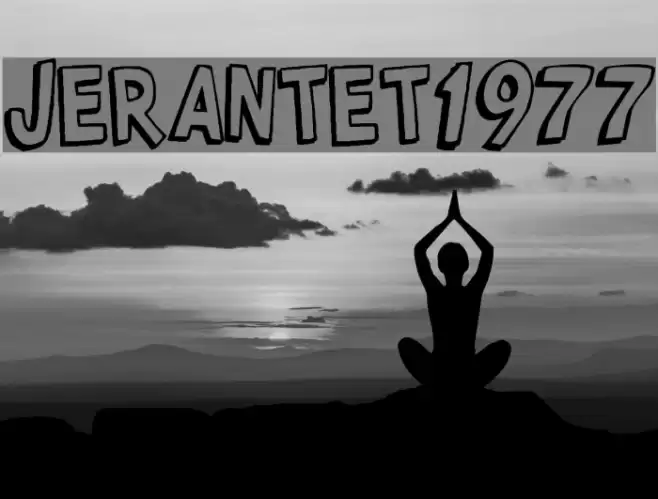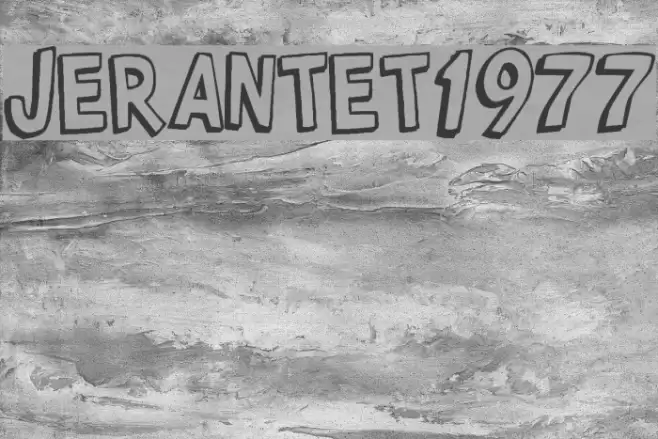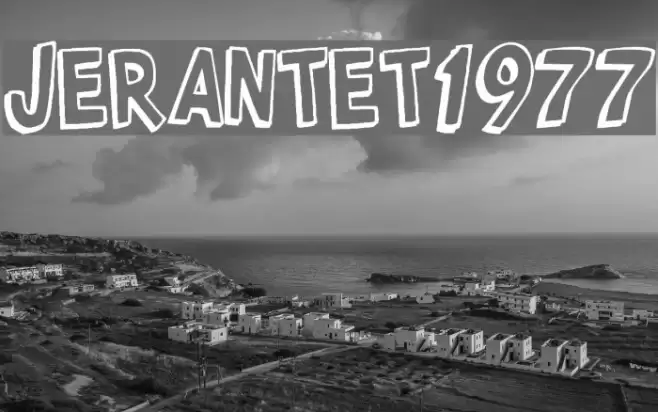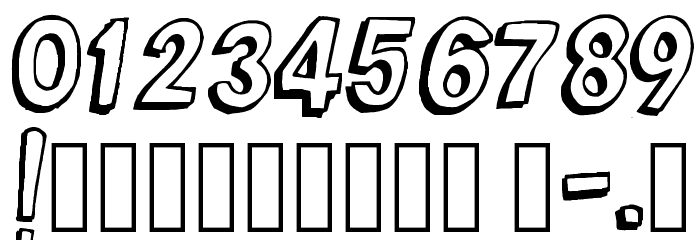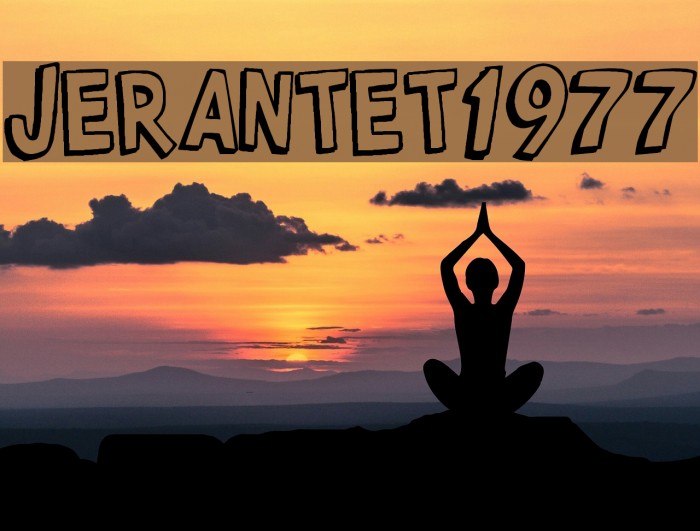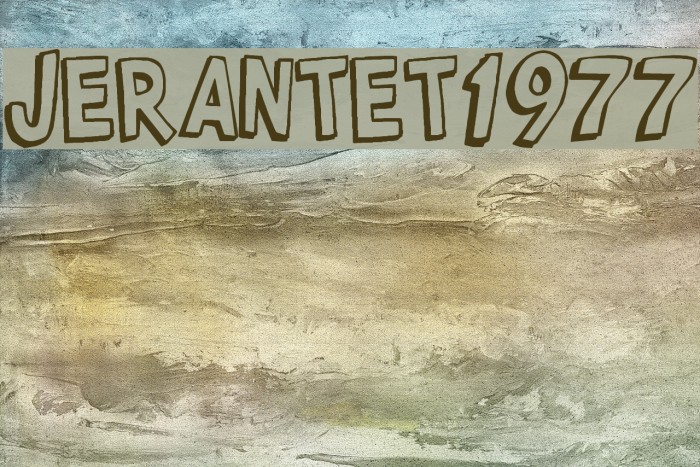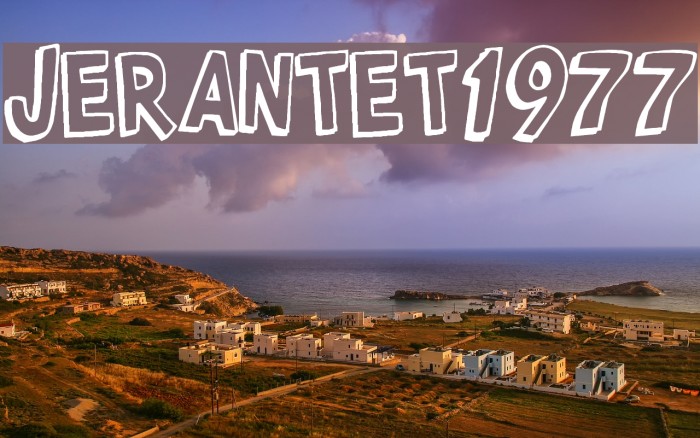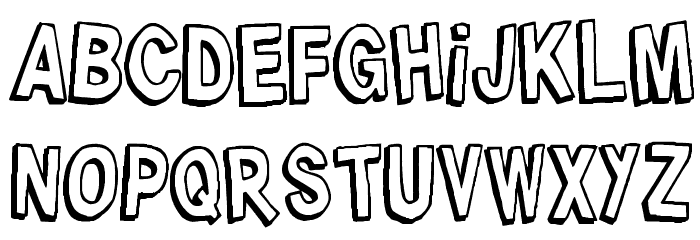
Jerantet1977 Font
Jerantet1977 Description
This font features a playful and bold design with a hand-drawn aesthetic. The characters are outlined, giving them a three-dimensional appearance. The uppercase and lowercase letters maintain a consistent style, with rounded edges and a slightly irregular shape that adds to the casual, informal feel. The numbers and special characters follow the same design principles, ensuring uniformity across all glyphs. This font is ideal for projects that require a fun and engaging look, such as children's books, comic strips, or playful branding materials.
A playful, hand-drawn font with bold, outlined characters from Cartoon fonts.
- Proposed Projects: Children's books, comic strips, playful branding, posters, and greeting cards.
- Overall Style: Playful, Casual, Hand-drawn
- Use Case: Headlines, Posters, Branding